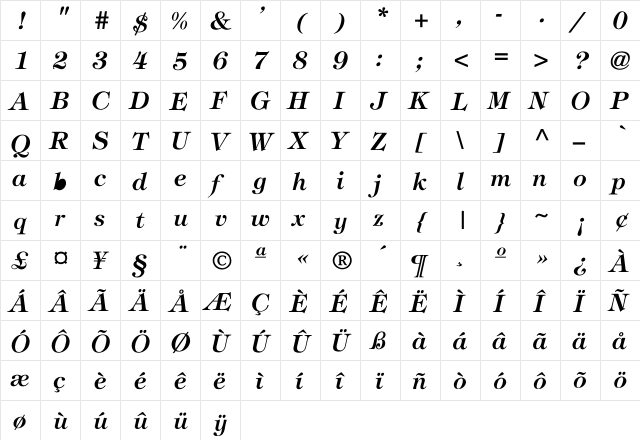
kENLEY-BoldItalic Regular
Design Context for kENLEY-BoldItalic Typeface
kENLEY-BoldItalic offers clean, dependable letterforms without strong stylistic allegiance, making it a practical choice for designers who need flexibility. The slanted form adds forward momentum and visual energy. The heavy weight commands attention and anchors typographic hierarchies.
Pro Tip: Try kENLEY-BoldItalic for annotation and caption copy alongside an upright companion — the contrast in angle creates a dynamic but ordered typographic system.